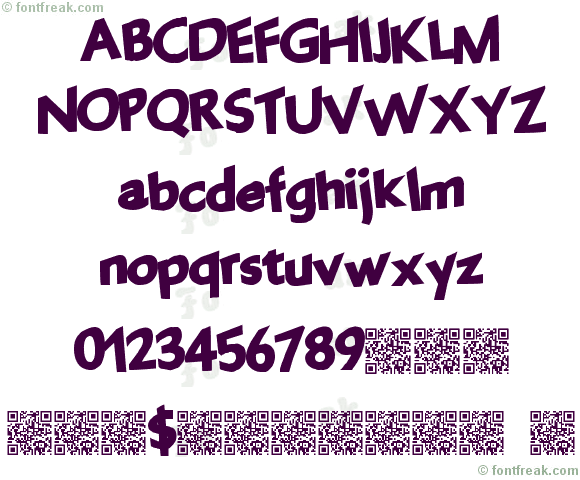
FantasticParty
About FantasticParty
FantasticParty by XEROGRAPHER FONTS is a playful display font that brings a sense of joy and celebration to any design project. Released in 2013, this freeware typeface is perfect for those looking to add a fun and vibrant touch to their work. The font features bold, irregular strokes that give it a lively character, making it stand out with its unique personality. The contrast in stroke weight adds dynamism, while the slightly spaced letters enhance legibility, ensuring that your message is conveyed effectively.
This font is particularly well-suited for a variety of creative applications. Its whimsical style makes it an excellent choice for birthday invitations, festive event posters, and children’s party materials. Additionally, it can elevate restaurant menus, especially those with a casual or family-friendly atmosphere, making dishes sound even more appealing. Graphic designers and content creators will find that the FantasticParty font free download allows for endless possibilities in branding projects, social media graphics, and promotional materials.
The target audience for this font includes graphic designers, small business owners, and anyone looking to inject a bit of personality into their designs. Its versatility ensures that it can be adapted for both print and digital media, catering to a wide range of creative needs.
What sets the FantasticParty font apart is its ability to evoke a sense of excitement and celebration. Its unique visual style captures attention and invites viewers to engage with the content. Whether you are designing for a special occasion, a fun campaign, or simply want to add a touch of whimsy to your work, FantasticParty delivers with charm and flair, making it a standout choice for any designer's toolkit.